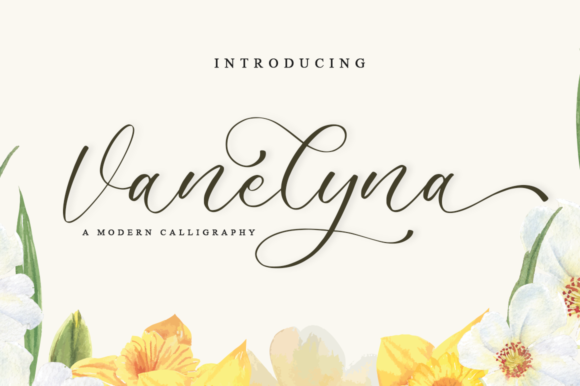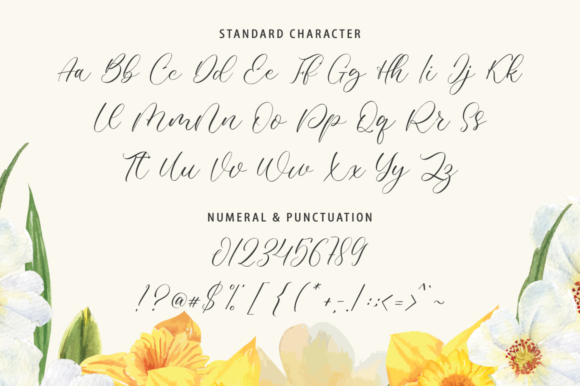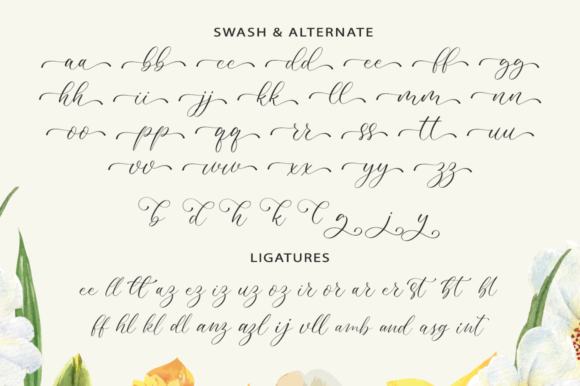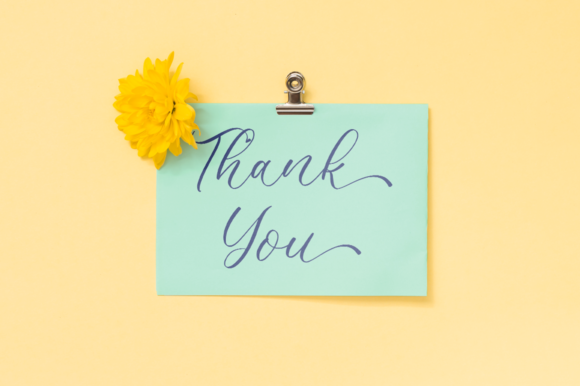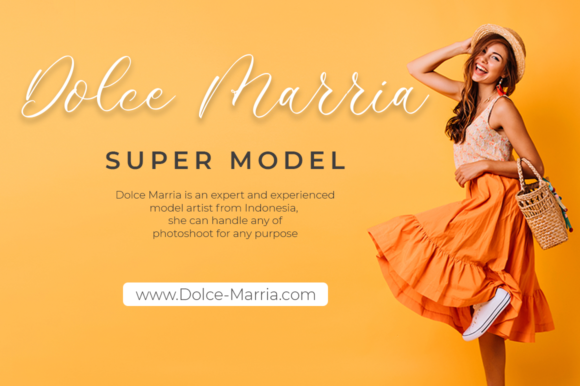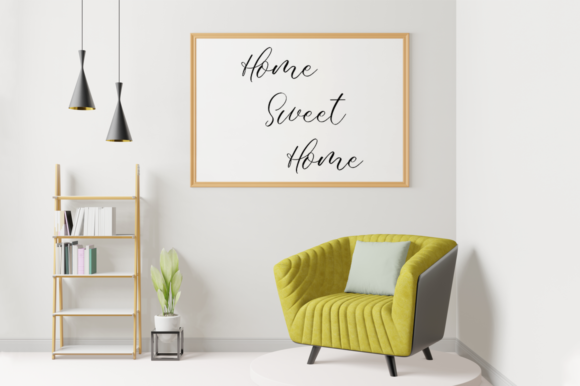
Vanelyna Font
About Vanelyna Font
Vanelyna is a delicate and elegant handwritten font. Its distinct and well balanced letters make this font a masterpiece. Vanelyna is PUA encoded which means you can access all glyphs and swashes with ease!